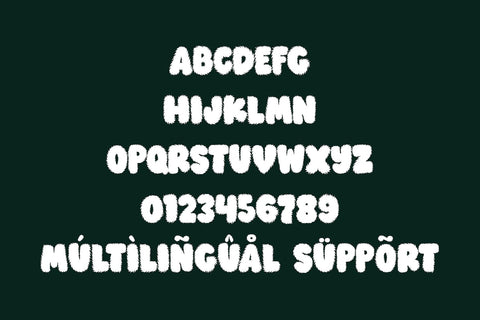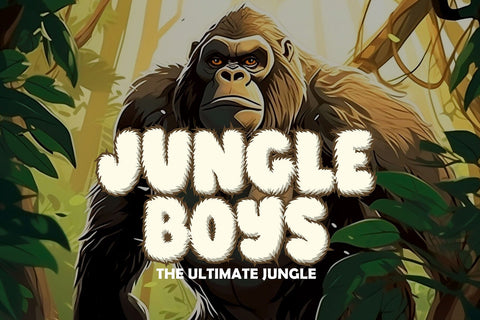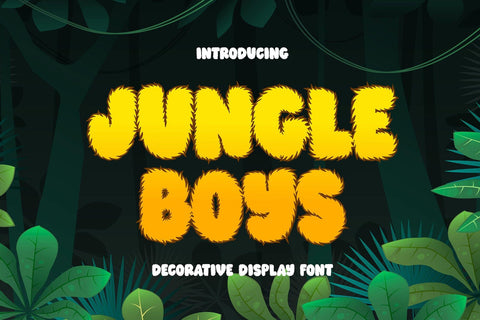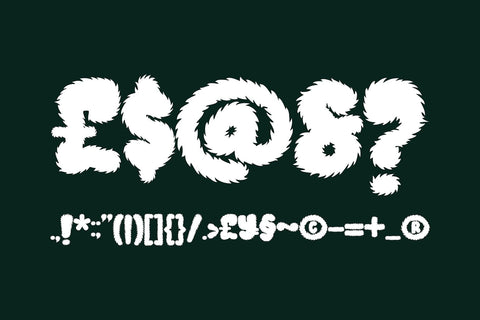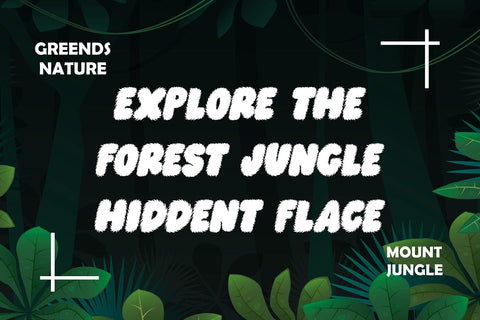
Jungle Boys – Furry Jungle Display Font
Unleash your wild side with Jungle Boys, a bold, furry display font inspired by the jungle! Designed with playful curves and thick, bushy strokes, this font brings a fun and adventurous spirit to any design project. Perfect for kids-themed posters, jungle storybooks, cartoons, birthday invitations, nature branding, and more. Whether you're designing for young audiences or just want to add a wild twist to your work, Jungle Boys will grab attention and spark imagination. Includes uppercase, lowercase, numbers, and basic punctuation in both OTF and TTF formats.